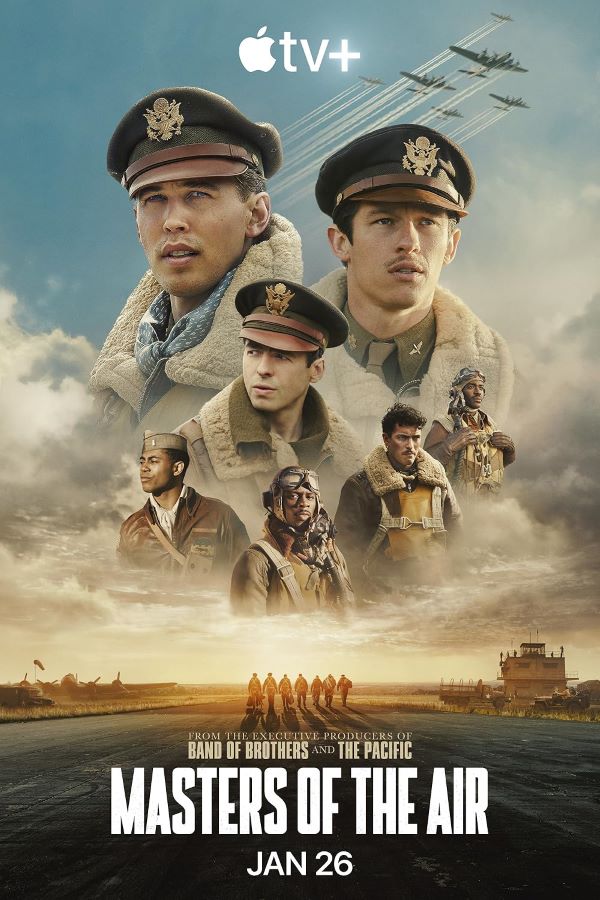
Masters of the Air Font
What Font is Masters of the Air?
Masters of the Air Font showcases a bold, military-inspired design that captures the courage and determination of World War II aviators. The font was custom-designed by Corey Holms and evolved into a typeface known as Flying Fortress, created specifically for Apple’s production of the series. Notably, the letter “S” underwent subtle refinements during development, adding to the authenticity and uniqueness of the design. Its strong, aerodynamic structure reflects aviation themes and wartime precision, making it ideal for projects that aim to convey bravery, heritage, and historical impact.
About Masters of the Air
Masters of the Air is a 2024 war drama miniseries produced by Apple TV+, following the heroic story of the 100th Bomb Group during World War II. Created by John Shiban and John Orloff, and executive-produced by Steven Spielberg and Tom Hanks, the series stars Austin Butler, Callum Turner, and Barry Keoghan. It powerfully depicts the sacrifice, camaraderie, and peril faced by the airmen who fought in the skies over Europe.